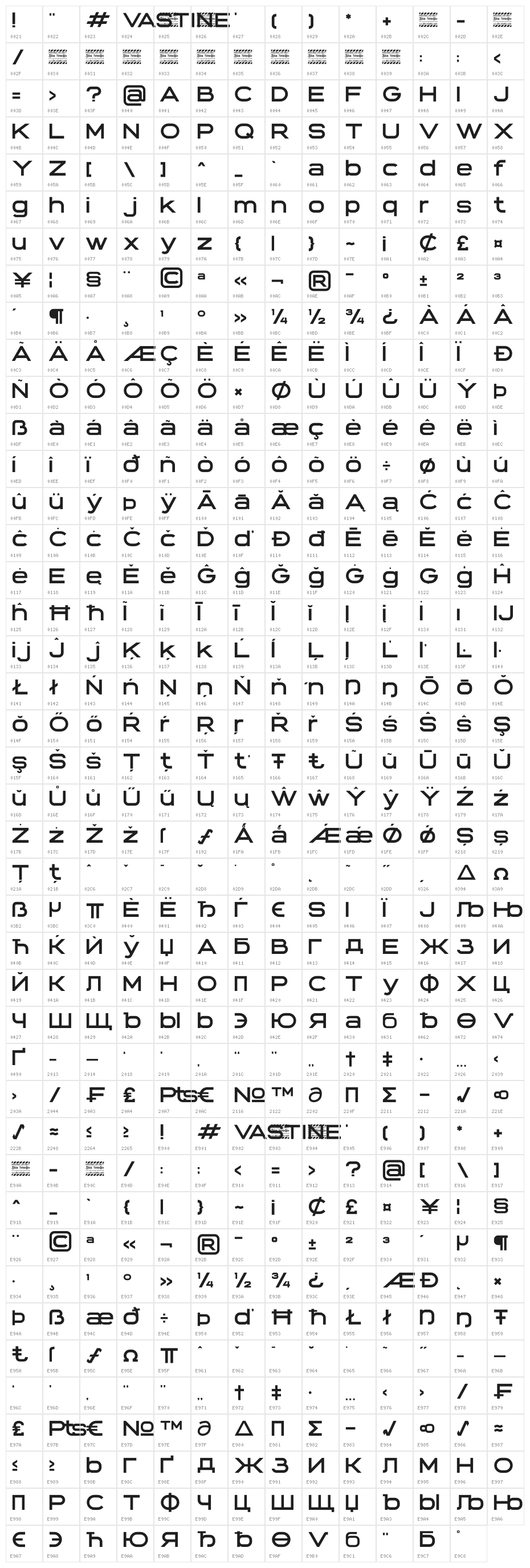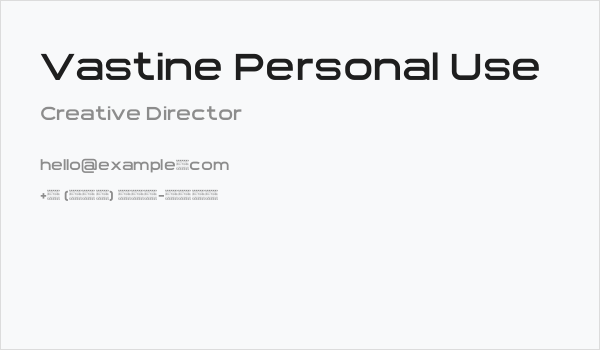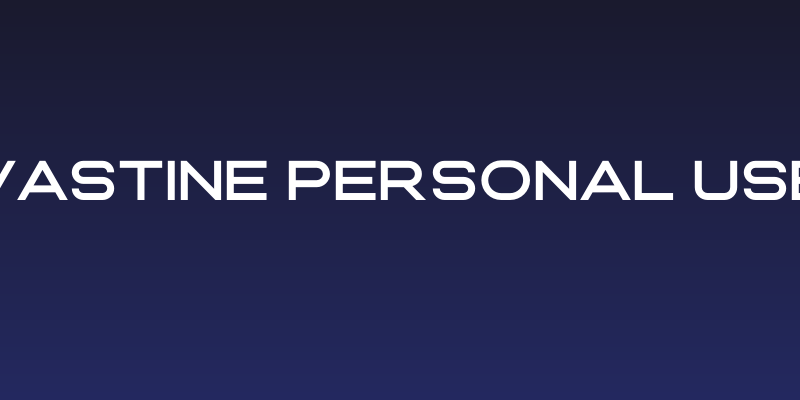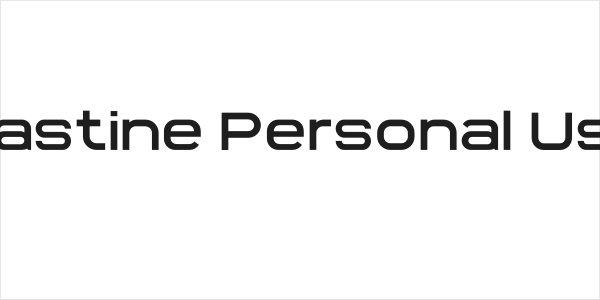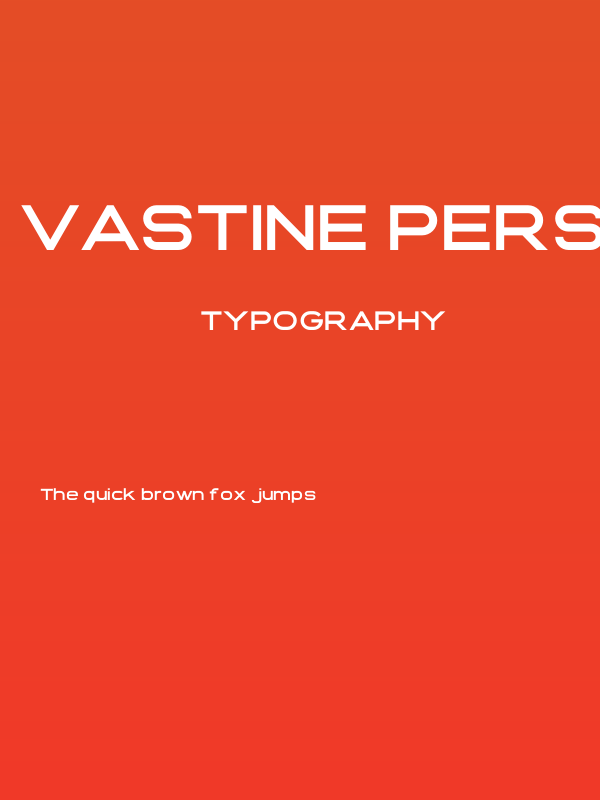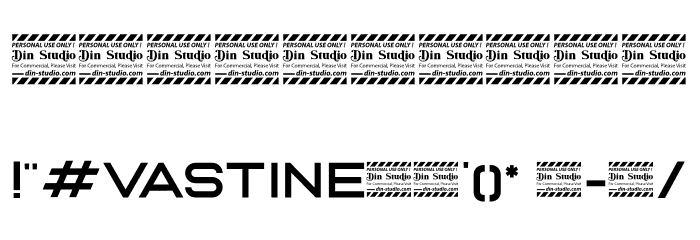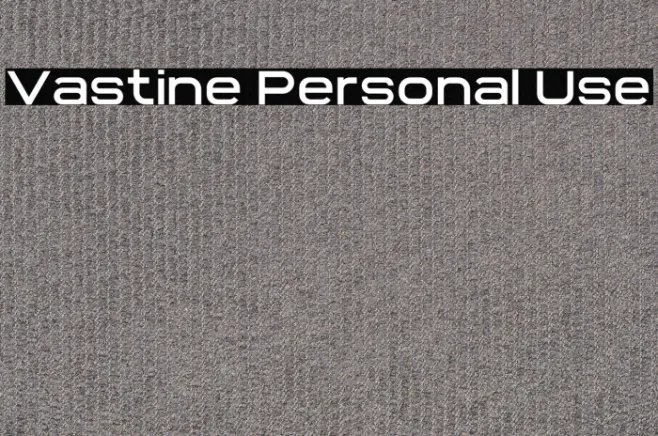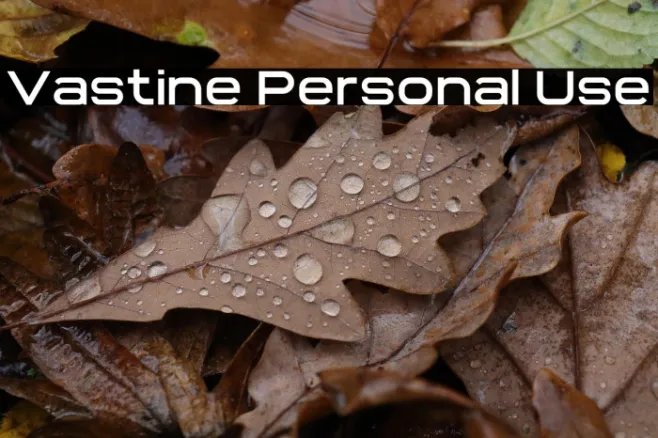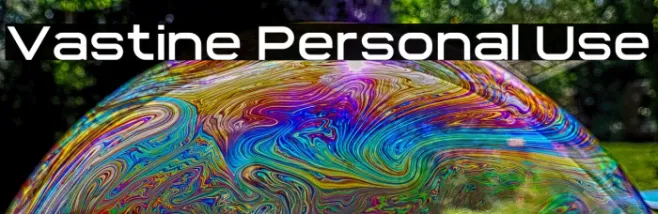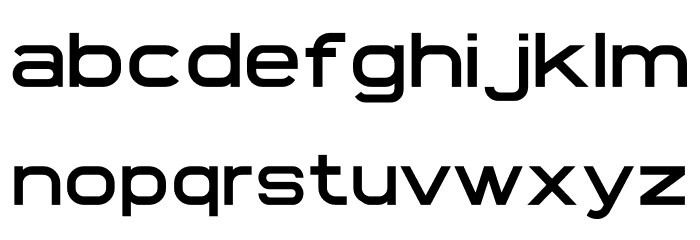
Vastine Personal Use Font
Vastine Personal Use Description
This font features a modern and sleek design with a geometric structure. The uppercase letters are bold and assertive, while the lowercase letters maintain a consistent style with slightly rounded edges. The numerals and special characters are designed to match the overall aesthetic, providing a cohesive look. The font's clean lines and uniform stroke width make it suitable for contemporary design projects. Its balanced proportions and clear legibility ensure it stands out in both digital and print formats.
| Proposed Projects | Ideal for branding, advertising, digital media, and modern editorial design. |